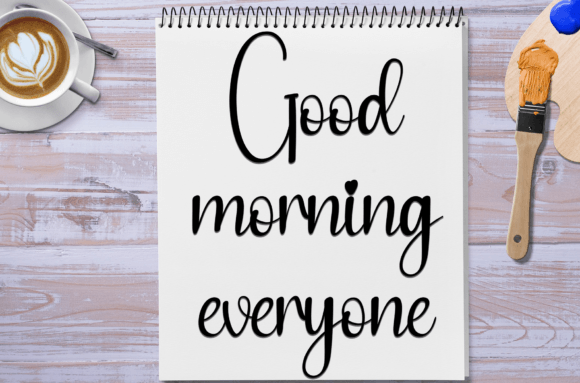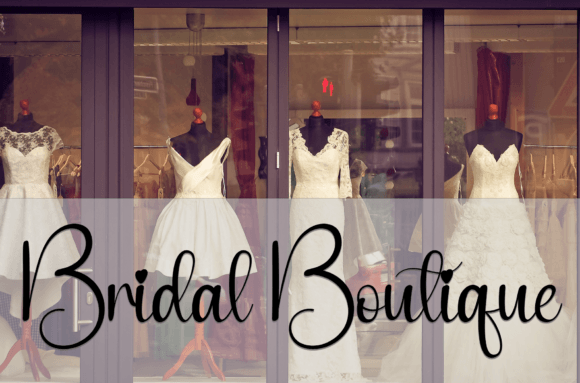
About The December Font
The December font offers a fresh and elegant handwritten style that is perfect for a variety of creative projects. Whether you’re designing wall displays, wedding invitations, or social media logos, this font brings a personal and stylish touch to your work.
Perfect for Wedding Invitations and Special Events
This font’s delicate handwritten style makes it an ideal choice for wedding invitations and event stationery. It adds a warm, personal feel that enhances the overall aesthetic and mood of your designs.
Versatile Use Across Projects
The Decemberfont is highly versatile. Beyond invitations, it works beautifully for advertisements, product packaging, labels, and product design. It also complements photography watermarks and branding materials, making it suitable for many types of creative work.
Stylish and Contemporary
With a clean and modern look, The Decemberfont combines elegance with contemporary style. Its well-balanced characters and smooth strokes ensure your designs are eye-catching and readable, even at smaller sizes.
Why Choose The December Font?
Whether you’re a designer or a creative professional, The Decemberfont provides a unique handwritten taste that enhances your projects. It offers both beauty and practicality, helping your designs stand out with a timeless handwritten flair. Use it to add charm and sophistication to your next project.